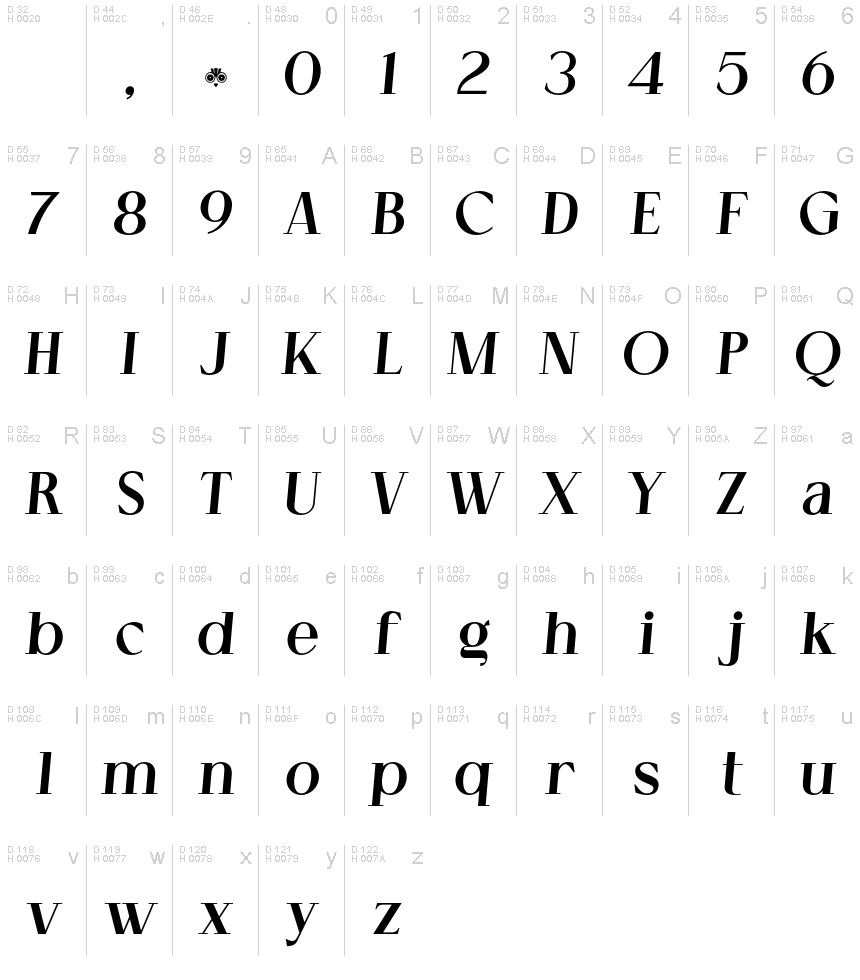
Cellofy ExtraBold Italic font from the Cellofy family, crafted by the renowned Owlking Project, is a striking serif typeface that's perfect for making an impact. Its bold and italic elements create a dynamic combination that exudes confidence and style, making it an excellent choice for headlines and branding projects. The strong, pronounced serifs lend a traditional yet modern feel, ensuring versatility in various design contexts.
Ideal for personal use, this free font can elevate presentations, posters, or any creative work where eye-catching typography is essential. The Cellofy ExtraBold Italic font invites designers to explore its unique aesthetic opportunities, delivering both elegance and readability.